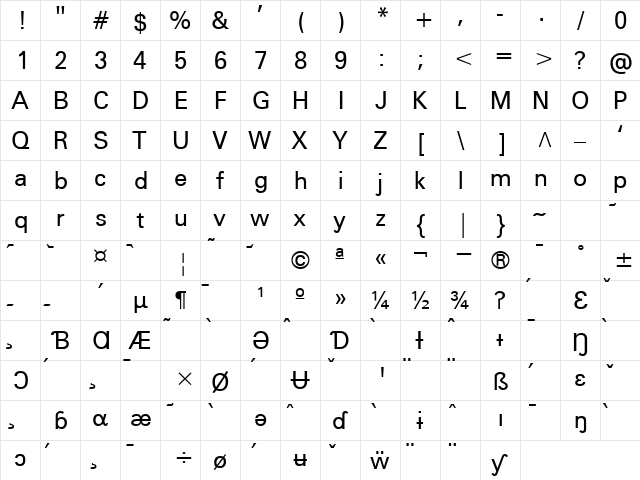
Cam Cam SILSophiaL Regular
Design Context for Cam Cam SILSophiaL Typeface
Cam Cam SILSophiaL takes a measured approach to typography — its balanced proportions and neutral character make it a reliable workhorse for both digital and print work.